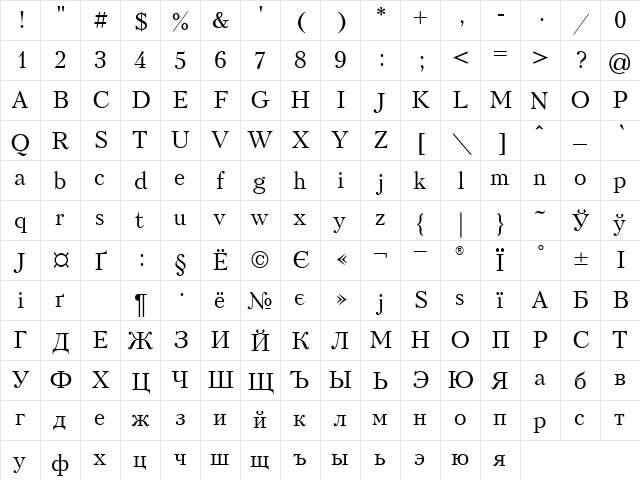
UkrainianKudriashov Regular
Design Context for UkrainianKudriashov Typeface
UkrainianKudriashov offers clean, dependable letterforms without strong stylistic allegiance, making it a practical choice for designers who need flexibility.